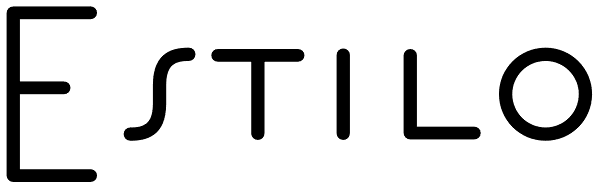
Estilo
Estilo is a very elegant headline typeface in a 30s style with plenty of ligatures for better design possibilities and includes Greek.
Estilo Font